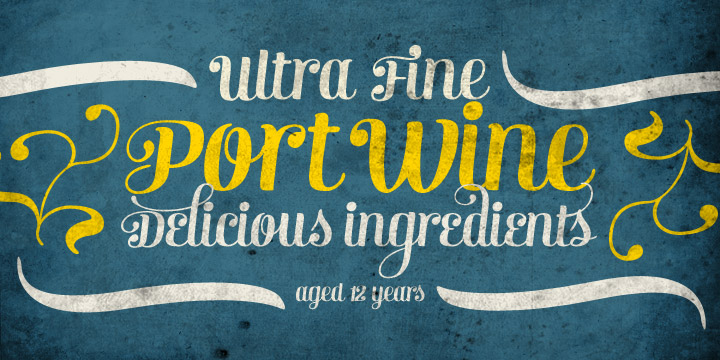
Verner Font is perfect for literary magazine covers, academic book publishing, scholarly journal design, intellectual brand identity, cultural institution signage, thoughtful editorial layouts, prestigious university materials, philosophical publication design, distinguished conference branding, and refined educational resources.
What makes Verner Font exciting is its intellectual sophistication and scholarly elegance that conveys wisdom, knowledge, and thoughtful communication. This distinguished typeface features carefully crafted letterforms with subtle classical influences that create an atmosphere of academic excellence and literary refinement. The font's balanced proportions and dignified character make it essential for institutions and publications seeking to establish credibility, tradition, and intellectual authority in educational and cultural contexts.
The Verner Font family includes scholarly variations: Regular, Bold, Light, Medium, Italic, and Small Caps versions. Each style maintains the core academic aesthetic while providing different levels of emphasis and formality. The complete family offers designers comprehensive tools for creating authoritative, intellectually engaging visual communications that honor literary and educational traditions while remaining accessible to contemporary audiences.
For projects requiring intellectual gravitas and scholarly appeal, Verner Font Free Download delivers exceptional credibility. This remarkable typeface elevates academic and cultural communications with its thoughtful design that resonates with educated audiences seeking depth and authenticity. Its versatile nature makes it perfect for both traditional print publications and modern digital platforms. Download Verner Font today and establish intellectual authority with this exceptional typeface that perfectly balances scholarly tradition with contemporary readability and timeless educational values.